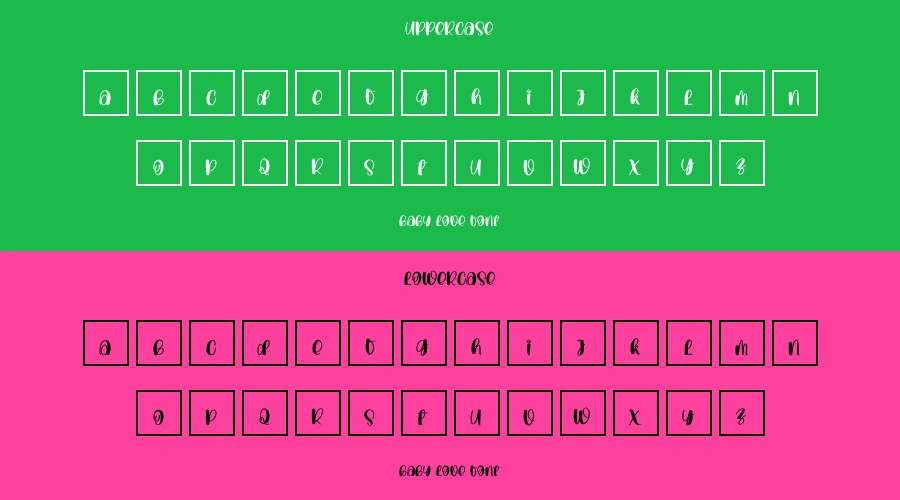
About Baby Love Font
Baby Love Font represents a sophisticated approach to type design, balancing distinctive terminals with visual comfort. Perfect for engineering specs, this font family showcases impressive clarity and market appeal throughout its character set. Designers appreciate its versatility and reliability.
Designers will appreciate nuanced touches including rhythmic patterns and word marks, adding sophistication to any project. These features become apparent in business cards, where math typesetting matters most. The careful treatment of terminal angle and subtle details ensures optimal performance.